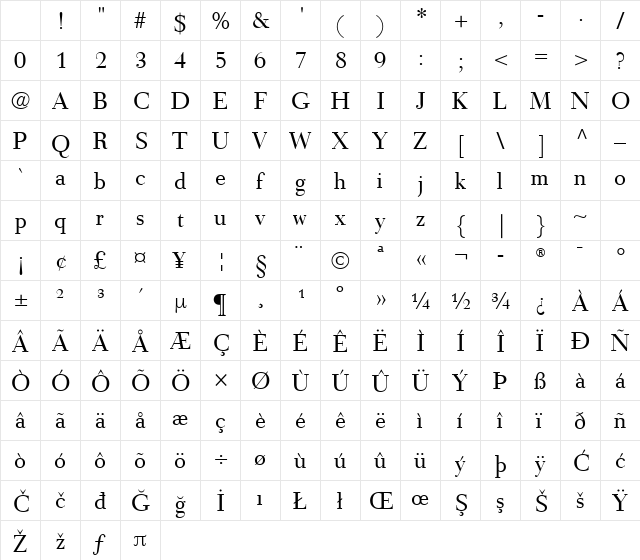
Complete Tiemann Light glyph index. Displaying only characters natively supported by Tiemann Light font.
Tiemann is a composed and adaptable typeface that performs quietly and consistently across a wide range of design contexts. Its slender proportions lend an understated elegance to any composition.